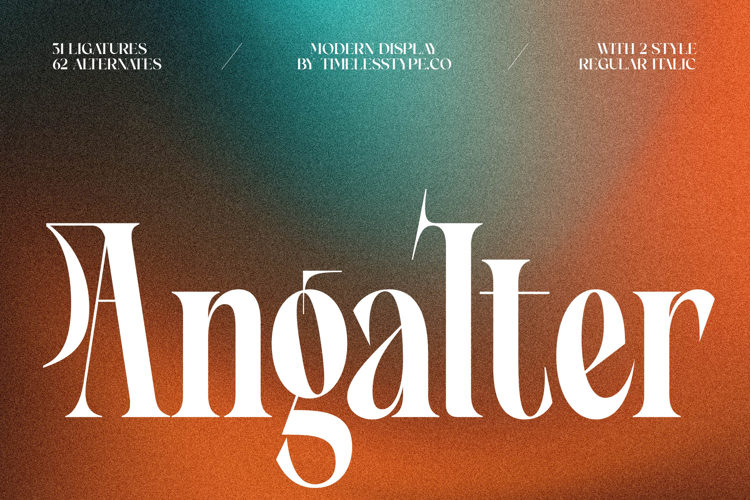
Angalter - Modern Display Font
Elevate your designs with Angalter - Modern Display Font, a typeface meticulously crafted to command attention. This sophisticated font offers a harmonious blend of classic elegance and contemporary flair, perfect for designers aiming for a bold yet refined statement. Featuring both Regular and Italic styles, Angalter - Modern Display Font is engineered for impactful headlines and distinctive branding, ensuring your message resonates with unparalleled style.
Unleash a new level of creative expression with the rich typographic features of Angalter - Modern Display Font. Its design showcases a beautiful high-contrast balance between delicate thin strokes and robust serifs, giving it a truly unique visual rhythm. With an impressive collection of 51 ligatures and 62 alternates, this font provides unrivaled customization options, allowing you to craft truly personalized and eye-catching layouts with ease.
Expand your design horizons globally. With its extensive multilingual support, Angalter - Modern Display Font adapts seamlessly across global markets, making it incredibly versatile for international projects. This feature ensures your brand maintains its sophisticated aesthetic and professional consistency whether reaching local or worldwide audiences, reinforcing its value as an indispensable asset for any design arsenal.